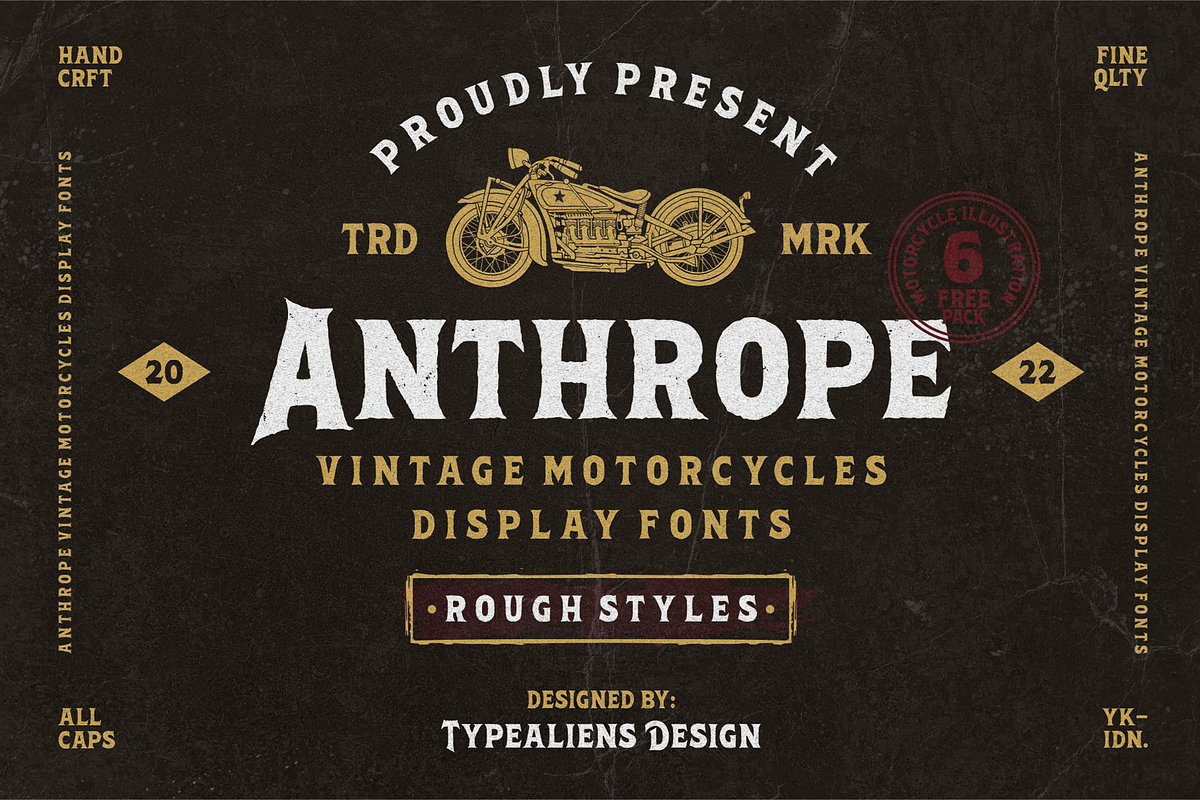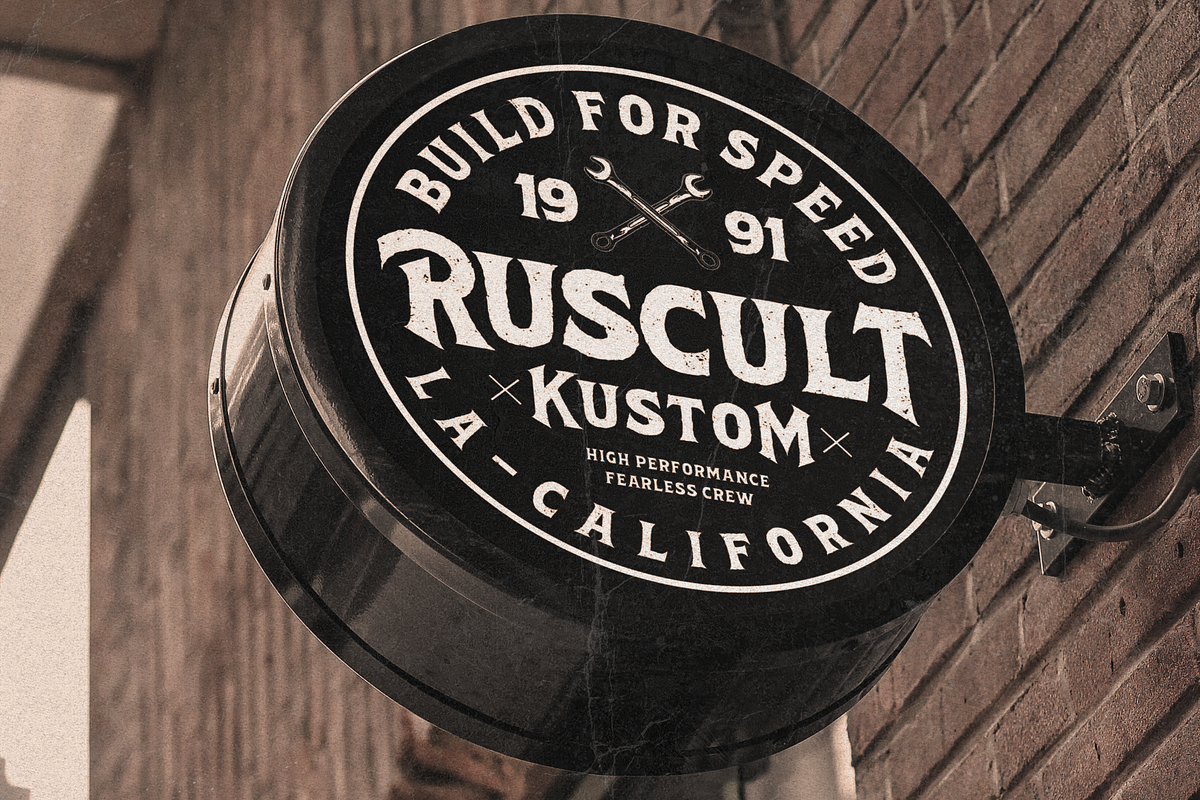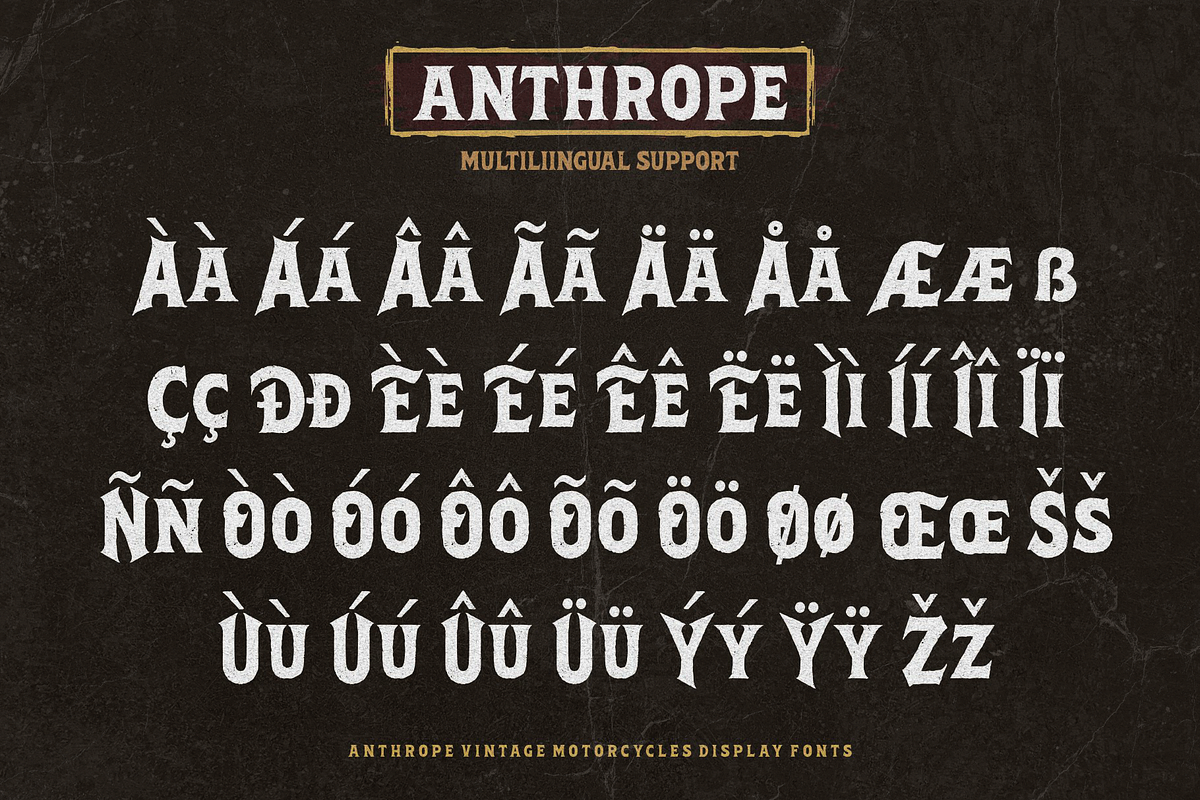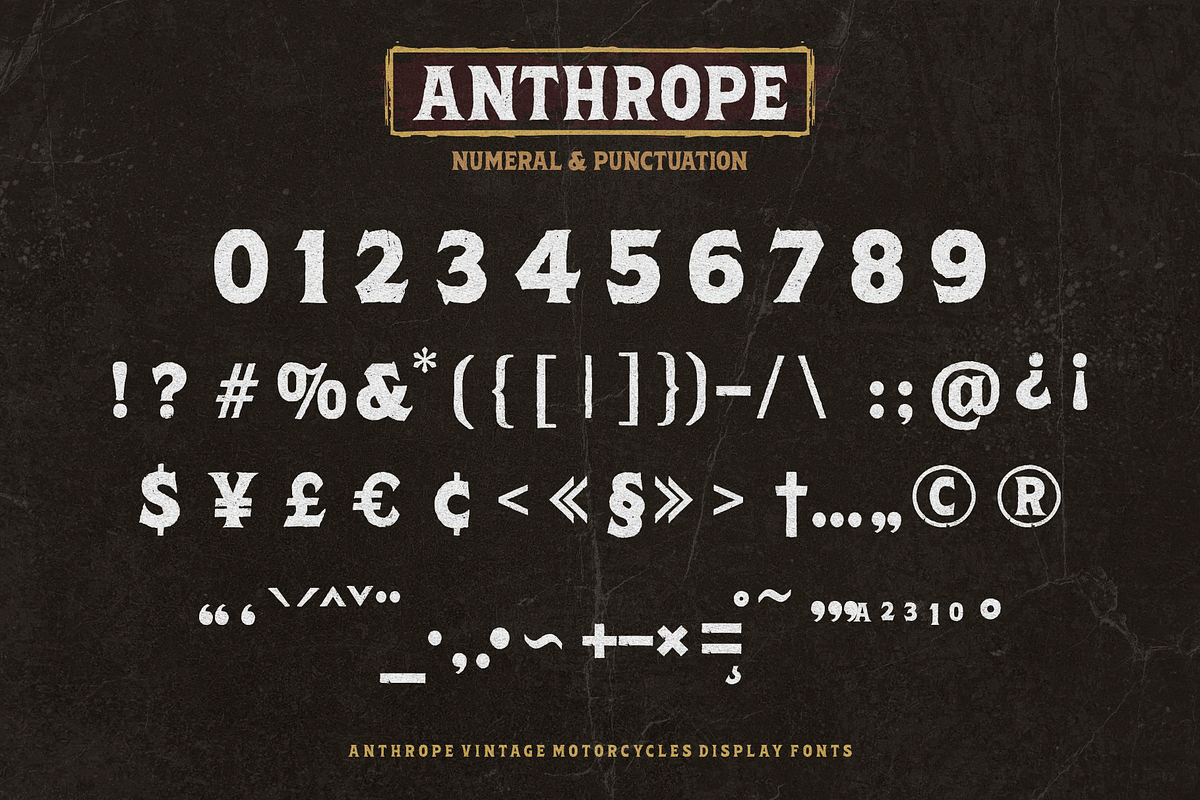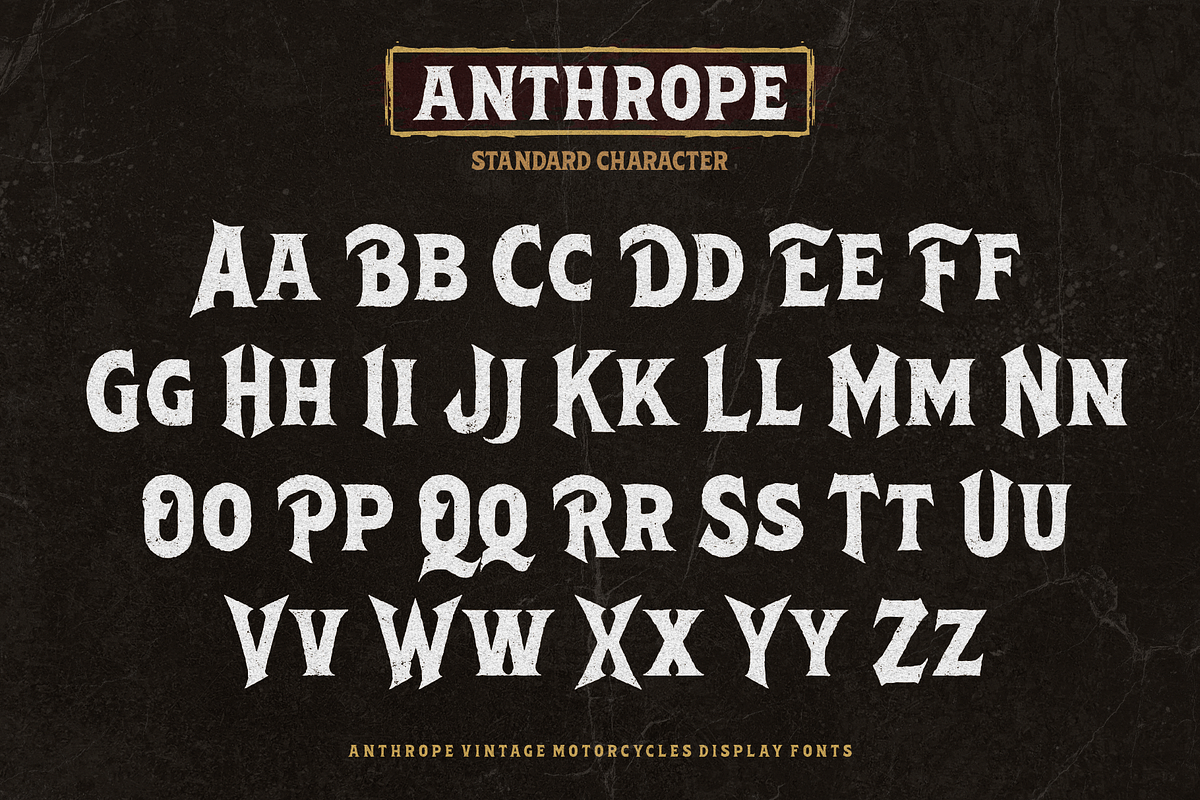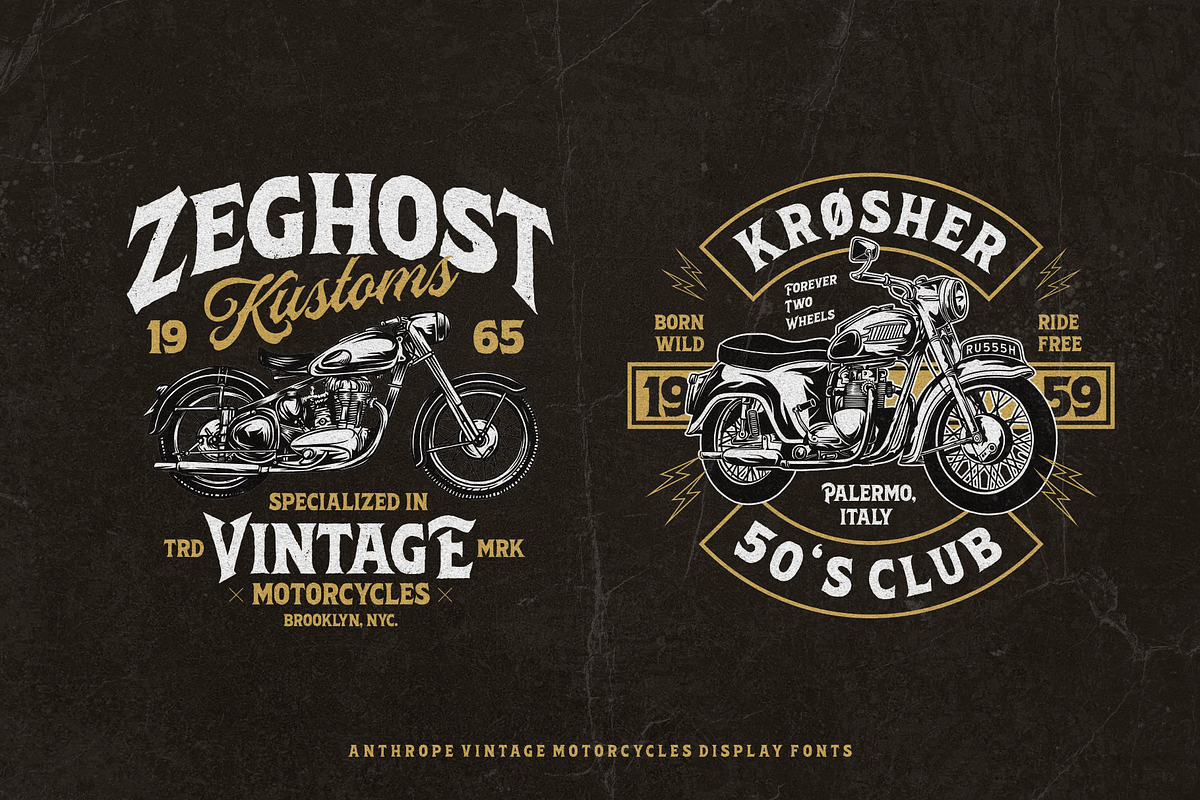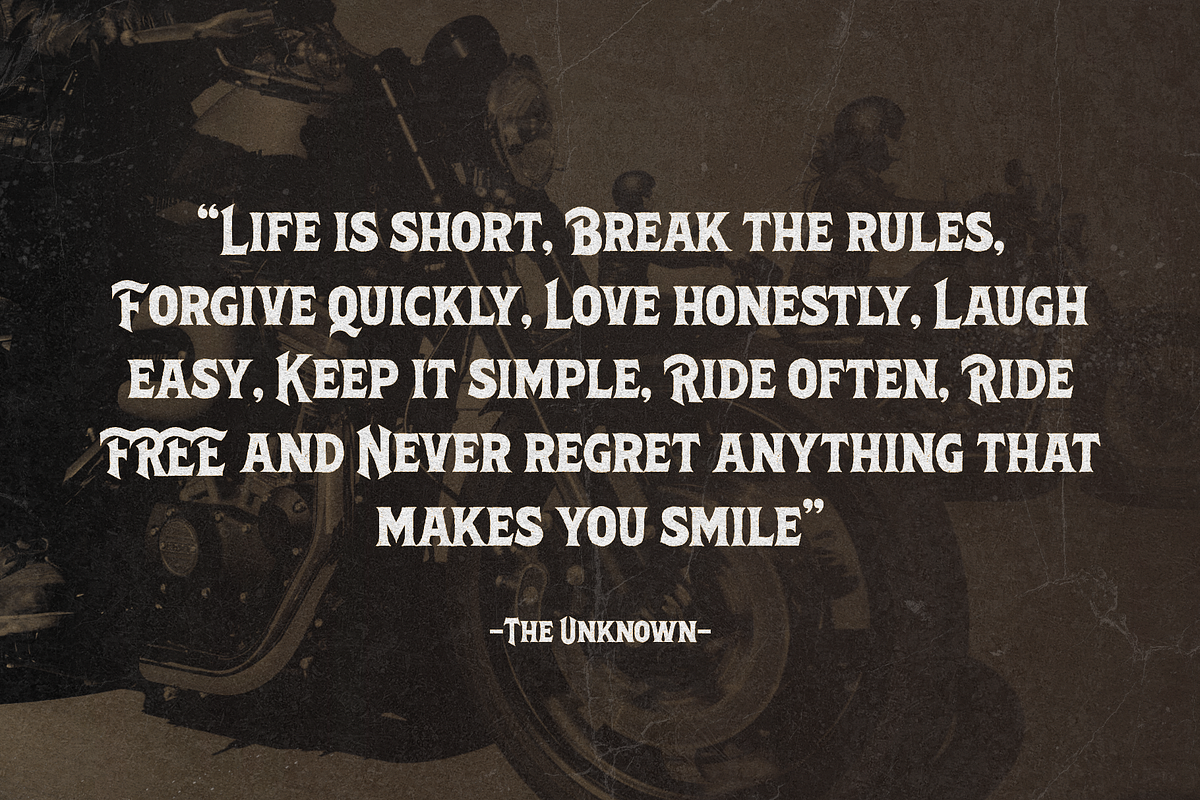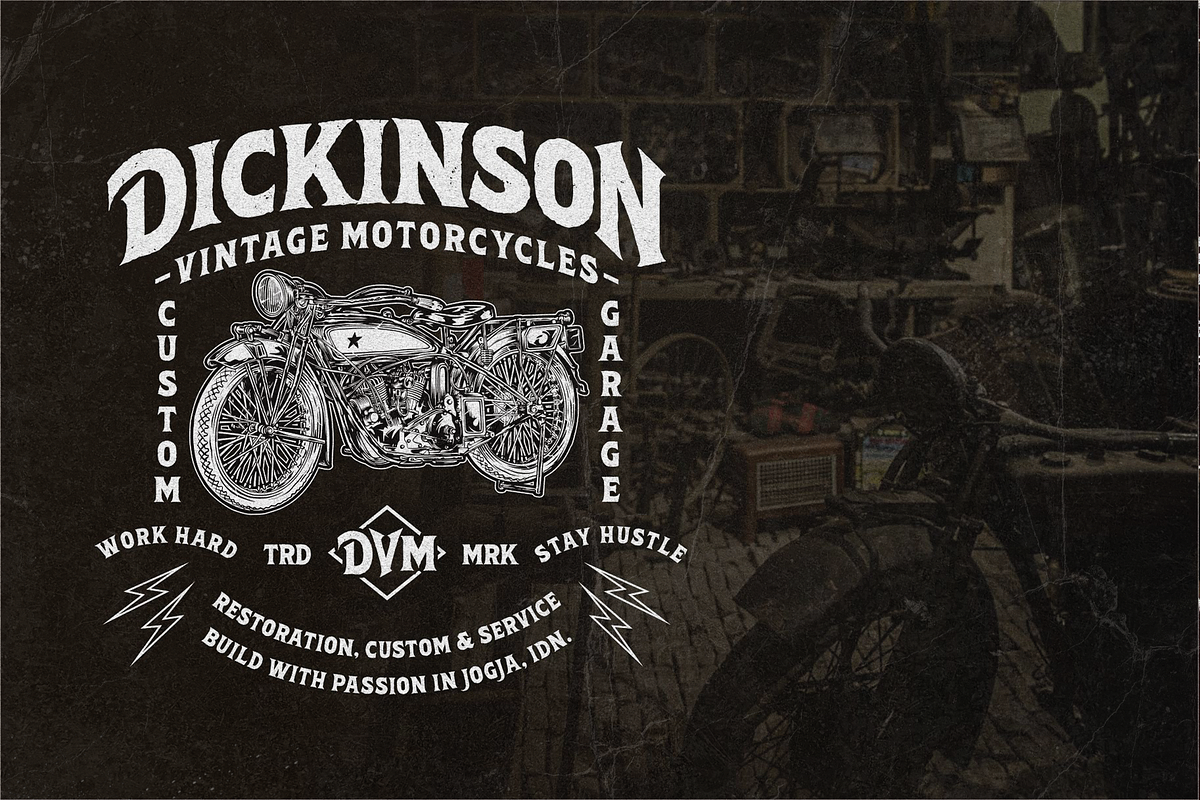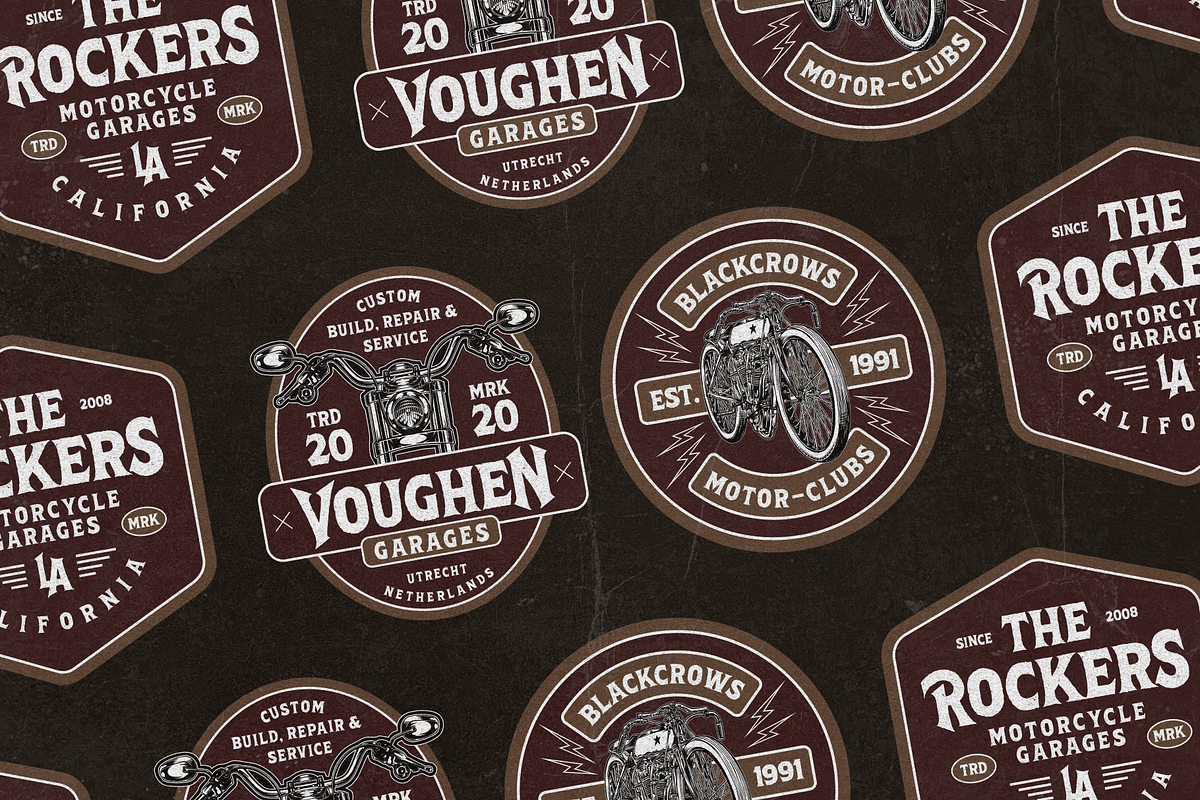
Anthrope
ANTHROPE
Anthrope is a serif font with a grunge style so it feels like a retro font, with a thick body that makes this font very manly. This font is perfect for designs related to male hobbies such as motorbikes. Besides that, this font is an all caps font, so this will add to the manly impression. All caps here still have the difference between Uppercase and Lowercase, which have different heights and different letter shapes.